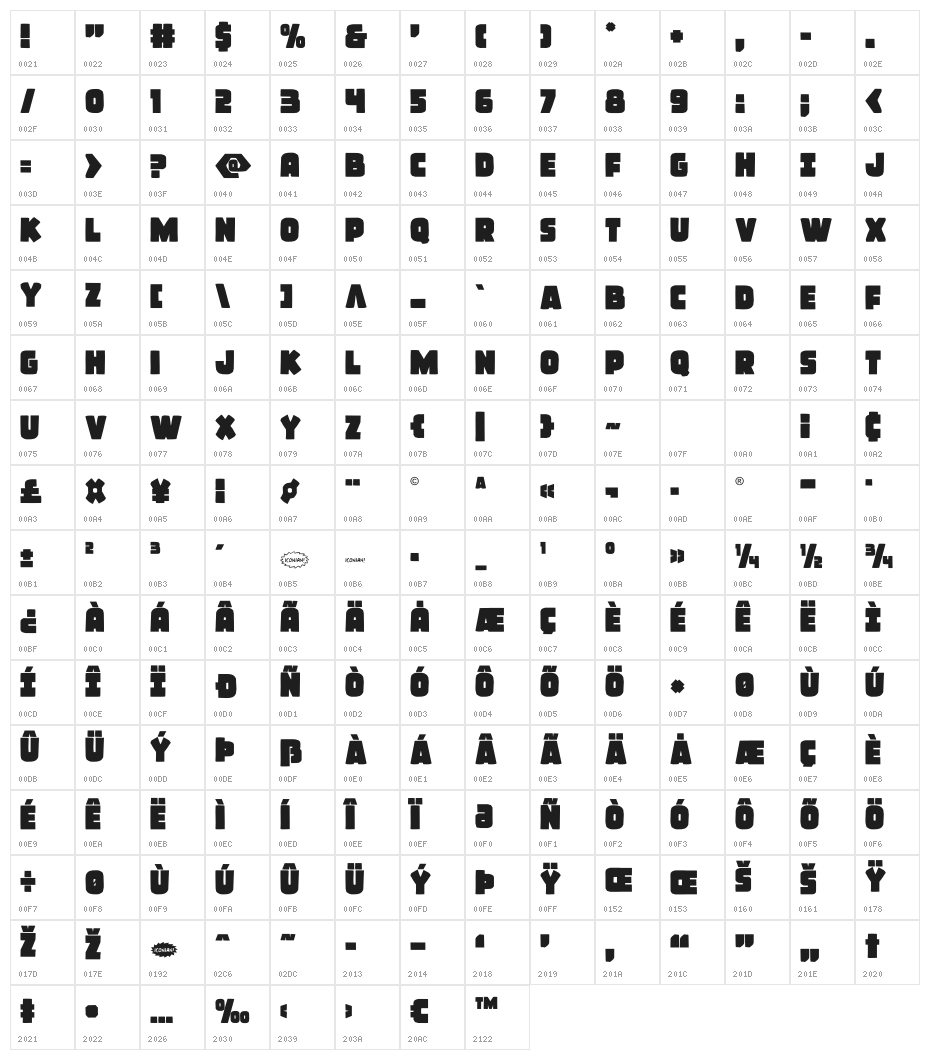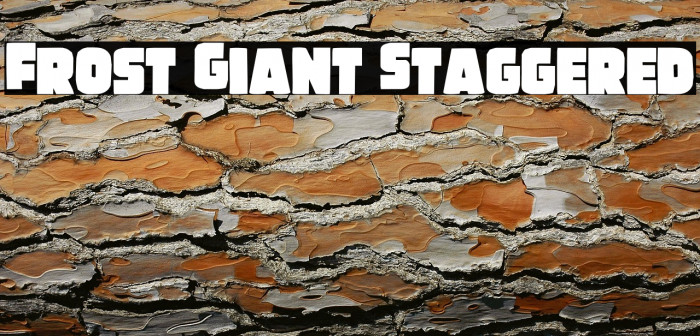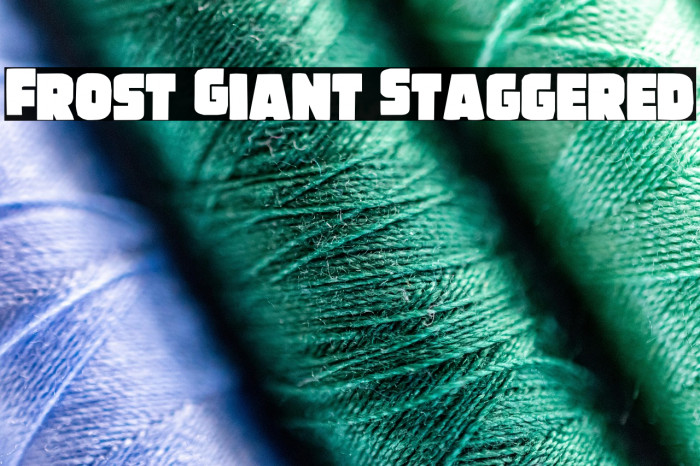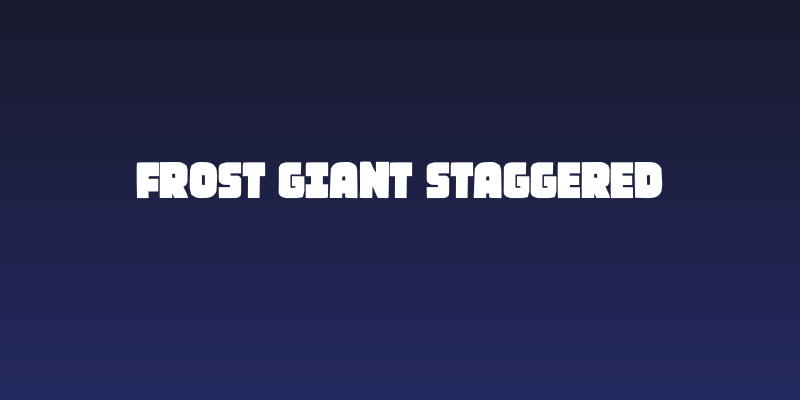
Frost Giant Staggered Font
Frost Giant Staggered Description
This bold and impactful font features thick, blocky characters with a staggered, uneven baseline that gives it a dynamic and playful appearance. The letters are uniformly wide, creating a strong presence that commands attention. The uppercase and lowercase letters maintain the same weight and width, ensuring consistency across text. The numbers and special characters are designed to match the boldness of the alphabet, making them suitable for various applications. The font's unique style is ideal for projects that require a strong visual impact.
| Proposed Projects | Ideal for posters, headlines, logos, and any design requiring a bold statement. |